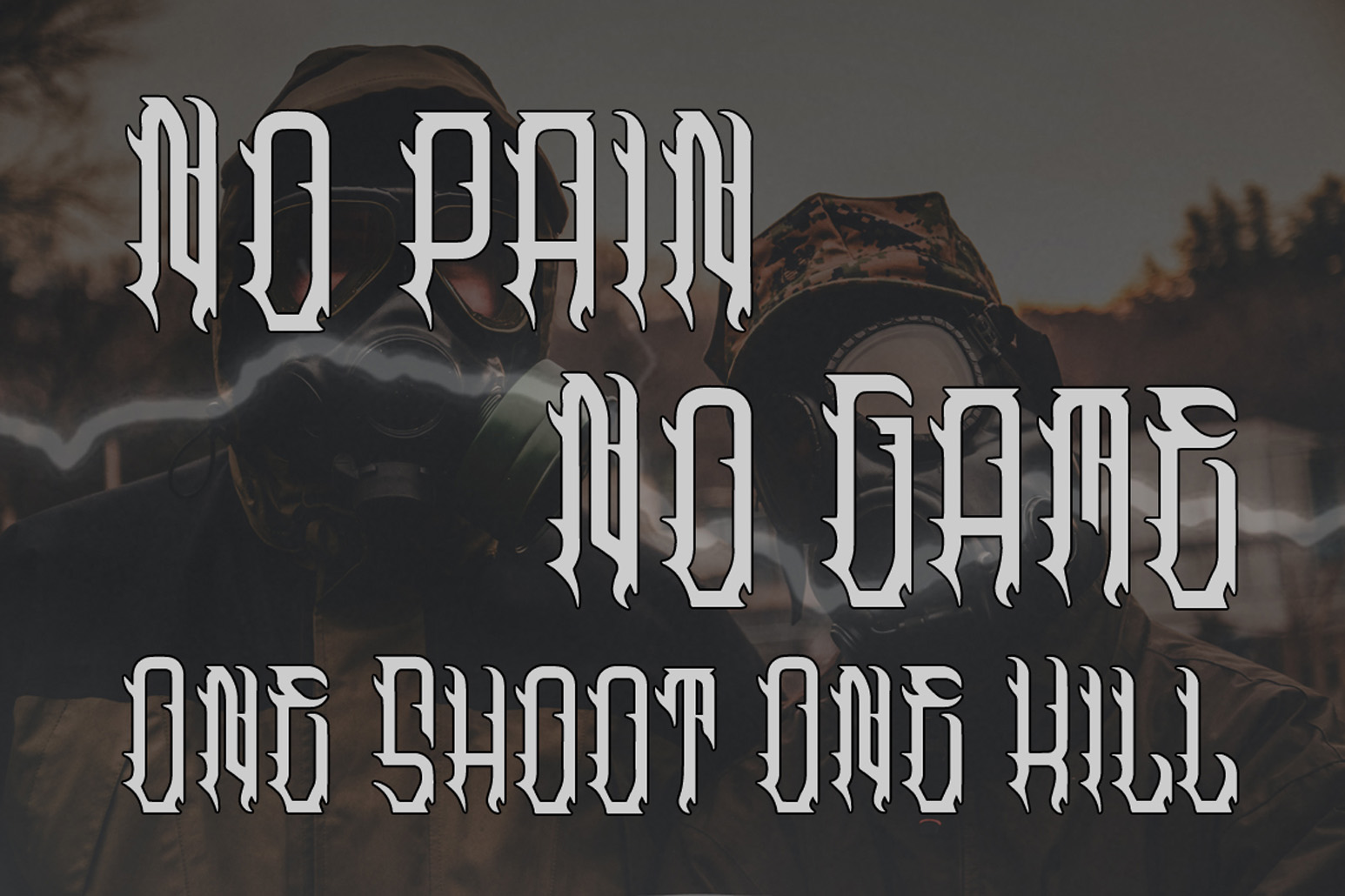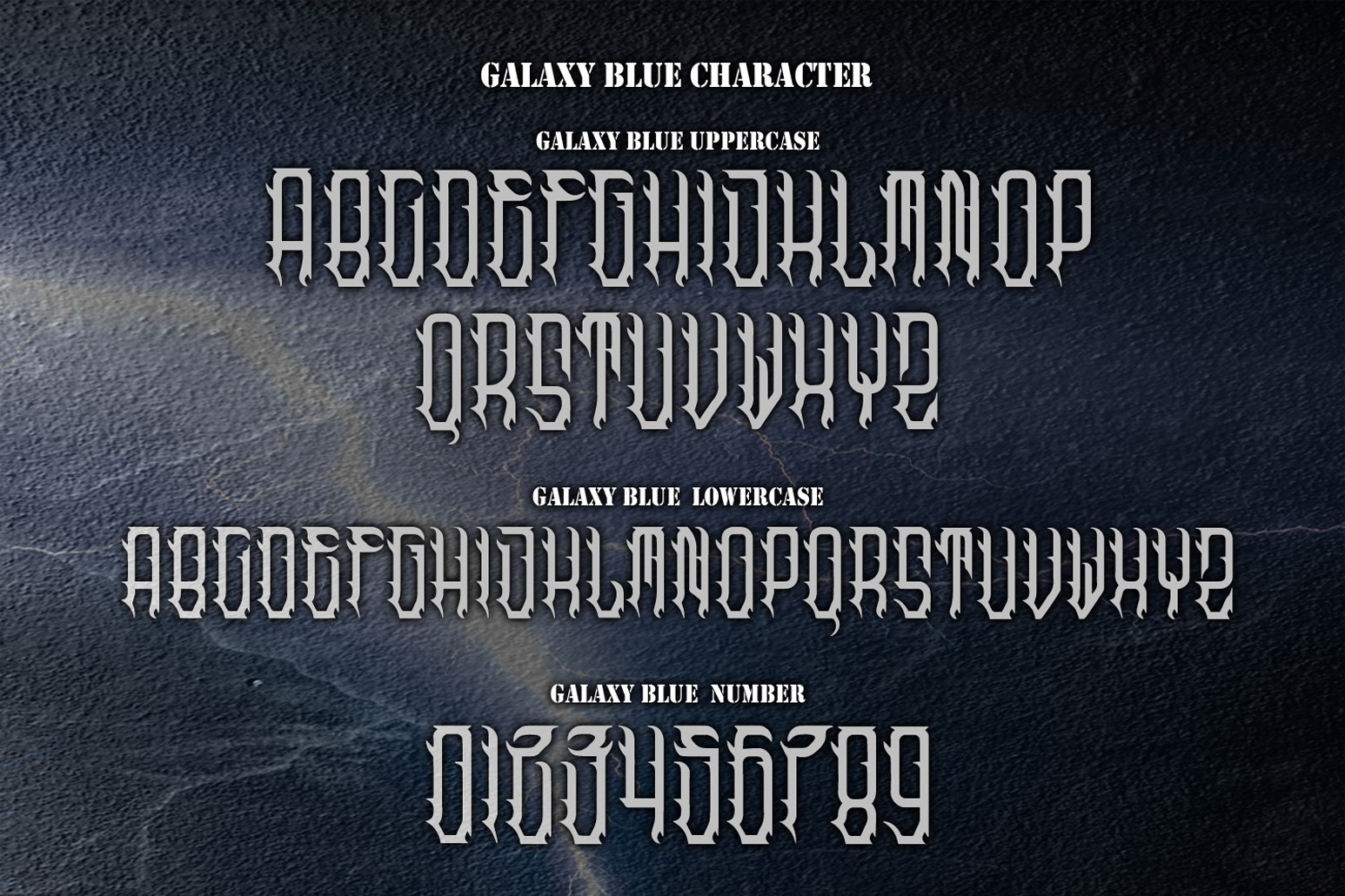
Galaxy Blue Font
Galaxy Blue Display Font is an incredibly cool and spooky blackletter font. Use it for product Halloween t-shirts, cards, social media posts, or other projects that need scary and daring typography!